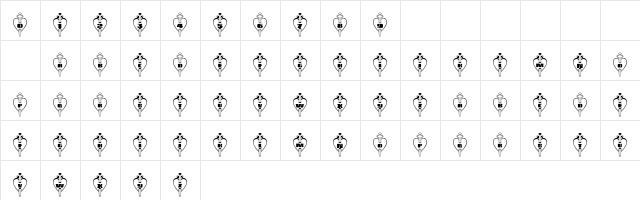
101! Thru My Heart Regular
Design Context for 101! Thru My Heart Typeface
101! Thru My Heart is a composed and adaptable typeface that performs quietly and consistently across a wide range of design contexts.